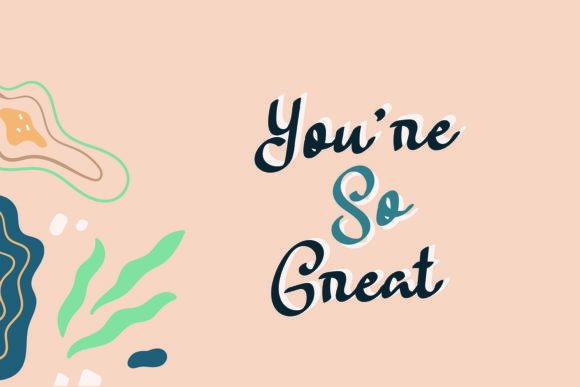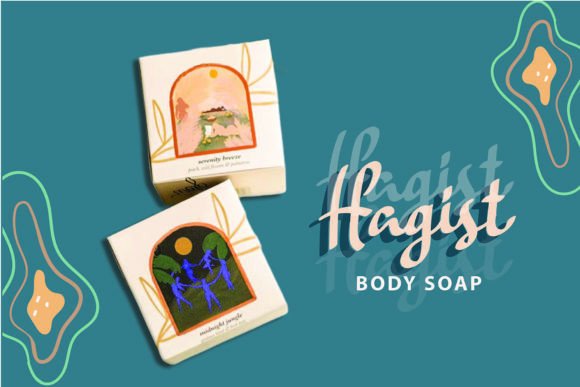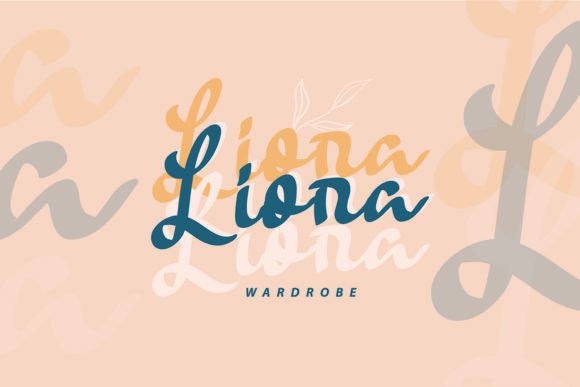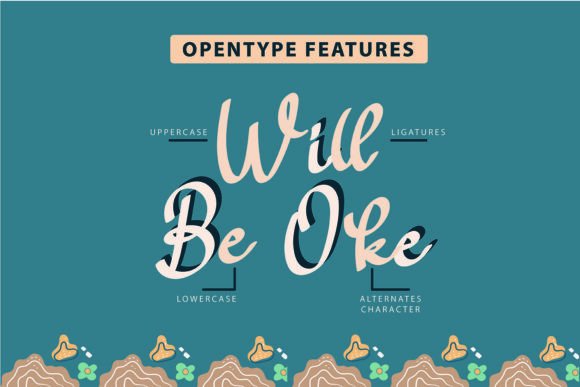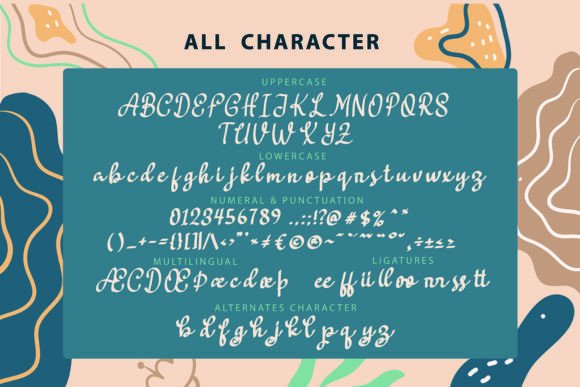
Introduction to Laycial Font
Laycial is a classic and luxurious script font that features graceful and elaborate curves, giving it a timeless, sophisticated look.
The fontโ€™s elegant lines and natural movement make it perfect for adding a touch of elegance to any project Itโ€™s the ideal choice for creating beautiful, stylish logos and titles.